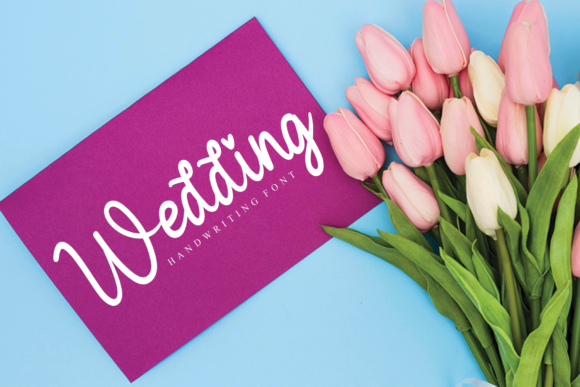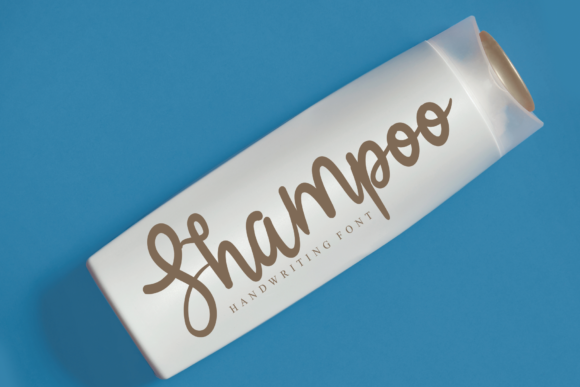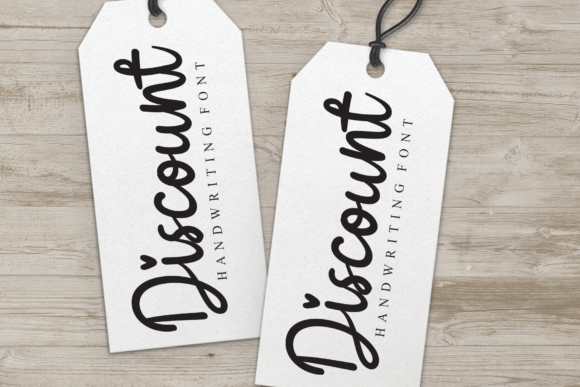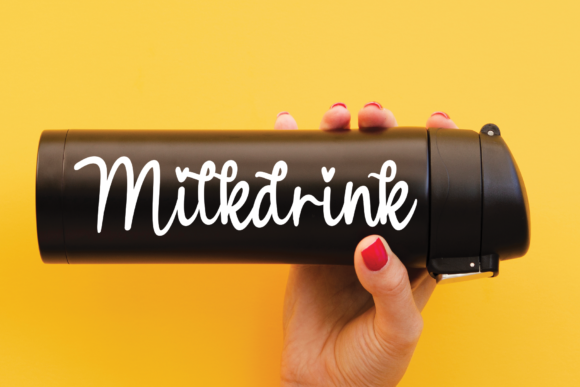
Introduction to Las Fallas Font
As designers, we’ve all been there – staring at a blank canvas, struggling to find the perfect font to bring our creative vision to life. It’s that moment when the right typography can make all the difference between a mediocre design and a truly stunning one. For those who crave a high-quality, bold, and stylish font, look no further than the Las Fallas Font.
This modern handwritten font is a game-changer for any creative project, offering a unique blend of smooth curves and edgy flair that’s perfect for fashion branding, editorial designs, or any other project that demands attention. With its free download and transparent background, the Las Fallas Font is an invaluable design resource that’s waiting to elevate your designs to the next level.
Las Fallas Font
- High-quality design resource featuring a creative project inspired by the Las Fallas festival.
- Unique, hand-drawn design with a transparent background, allowing for seamless integration into various projects.
Honest Review: Las Fallas Font
I recently had the chance to work with the Las Fallas Font, and I must say it’s a great addition to any designer’s toolkit. This high-quality font is perfect for a creative project that requires a unique and festive touch.
One of the things that stands out about the Las Fallas Font is its versatility. It’s available as a free download, making it an excellent resource for designers on a budget. The font itself has a beautiful, hand-drawn feel that works well for a variety of applications, from logo designs to social media graphics.
Here are some of the things that work well with the Las Fallas Font:
- ✨ Unique and festive feel that’s perfect for creative projects
- ✨ High-quality design that’s suitable for a range of applications
That being said, there are a few limitations to consider:
- ⚠️ Limited character set may require additional font pairing for more complex designs
Overall, I’m impressed with the Las Fallas Font. It’s a great resource for designers looking to add a unique touch to their projects. With its high-quality design and free download, it’s an excellent addition to any design toolkit.
Las Fallas Font
The Las Fallas Font is a high-quality design resource perfect for creative projects. This free download offers a unique and stylish aesthetic, ideal for adding a touch of sophistication to your designs.
Tips for Getting the Most Out of Las Fallas Font
To get the most out of the Las Fallas Font, use it with a transparent background to create a clean and modern look. You can also pair the font with other design elements, such as graphics and images, to create a visually appealing design.
The Las Fallas Font is ideal for a variety of creative projects, including branding, marketing materials, and editorial design. You can use the font to create eye-catching headlines, titles, and captions that add a touch of sophistication to your designs.